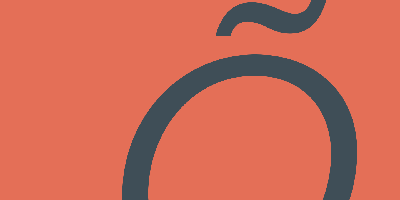
Fringe Font is ideal for alternative art galleries, indie film festivals, experimental theater productions, bohemian fashion brands, underground music venues, avant-garde publications, and creative counterculture movements. This unconventional typeface brings artistic rebellion and alternative expression to any design project celebrating non-conformist creativity and boundary-pushing artistic vision.
What makes Fringe Font exciting is its provocative combination of artistic experimentation and edgy sophistication that challenges traditional design conventions and celebrates creative freedom. The font features irregular letterforms with unconventional angles and expressive variations that evoke the spontaneous energy of performance art and alternative cultural movements. Its rebellious character attracts creative audiences while maintaining surprising readability for both artistic publications and alternative brand applications.
The Fringe Font family includes regular and bold weights with complementary distressed variations and artistic ornamental elements. The character set features experimental ligatures, alternative symbols, avant-garde alternates, and creative decorative accents that enhance the font's unconventional appeal. Advanced OpenType features provide artistic flexibility for international alternative arts organizations and multilingual creative expression platforms.
Whether you're designing alternative arts brands, creating experimental entertainment materials, or developing cutting-edge creative content, Fringe Font Free Download provides exceptional artistic edge and versatility. This revolutionary typeface transforms ordinary text into compelling artistic statements that inspire creative rebellion while establishing memorable recognition in competitive alternative arts and experimental culture marketplaces.